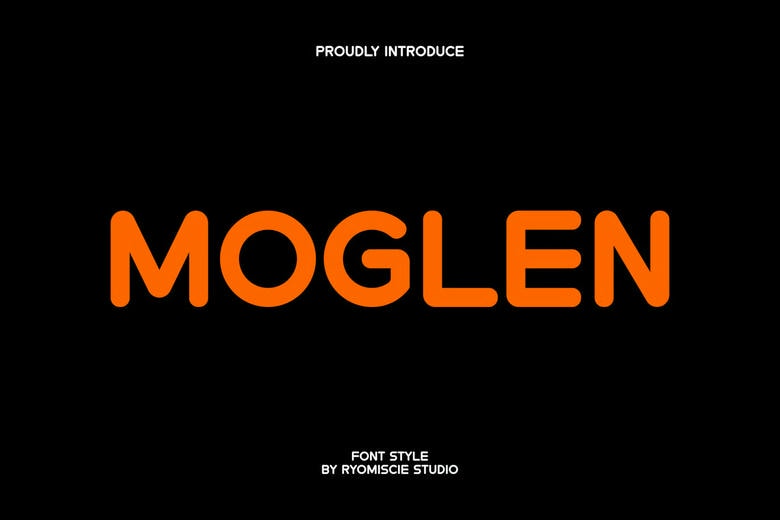
Moglen Font
Moglen Modern Sans Serif Font is a bold and authentic display font. It works well for branding projects such as logos, esports, and more. This font stands out in many different settings.
Moglen Sans Serif Font